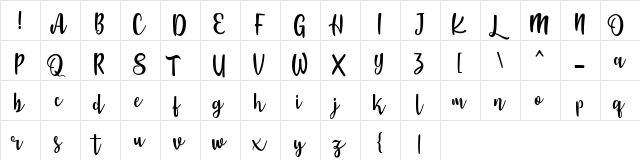
Langrish Script Regular
Design Context for Langrish Script Typeface
Langrish Script brings a calligraphic fluidity to the page — its connecting strokes and expressive curves give it an unmistakably human quality.
Font Pairing: Combine Langrish Script with a simple geometric sans for maximum contrast — the tension between flowing curves and clean structure is a classic typographic pairing.
Pro Tip: Pair Langrish Script with a clean sans-serif for supporting text. The contrast between fluid script and geometric structure creates an elegant typographic hierarchy.